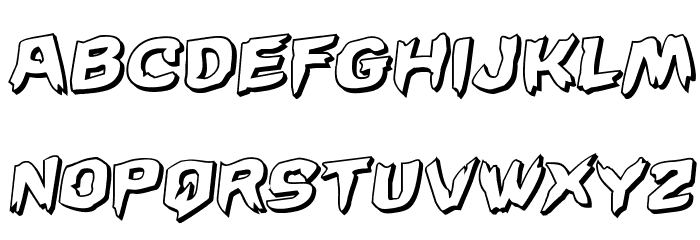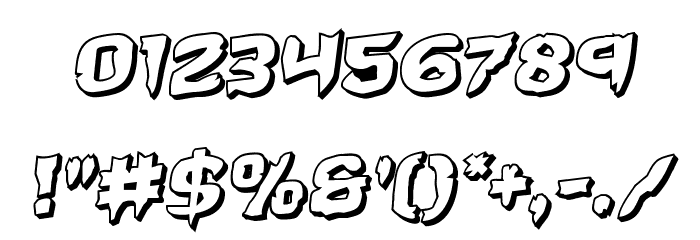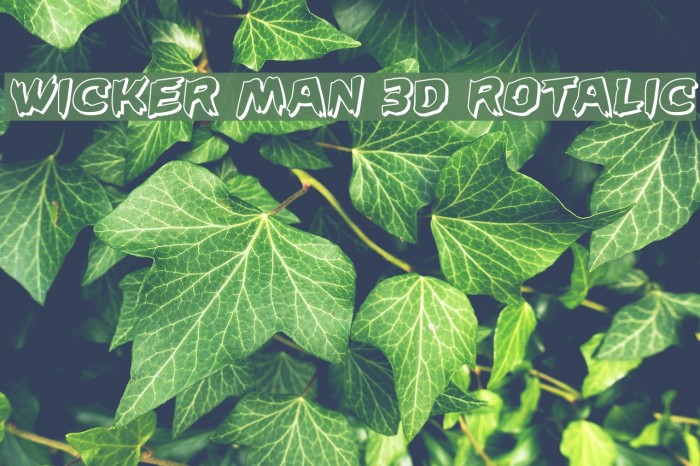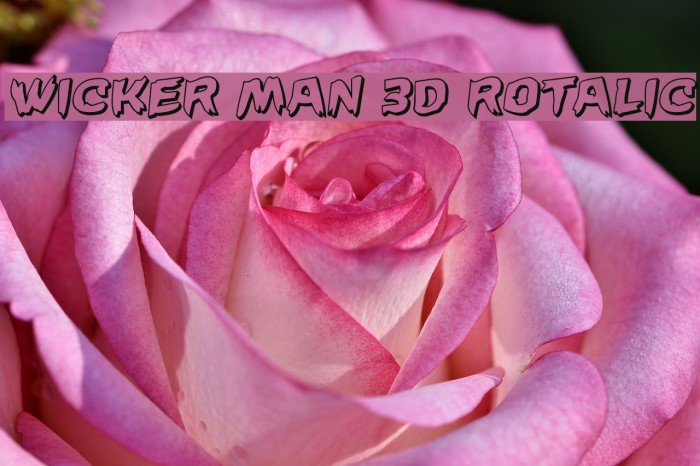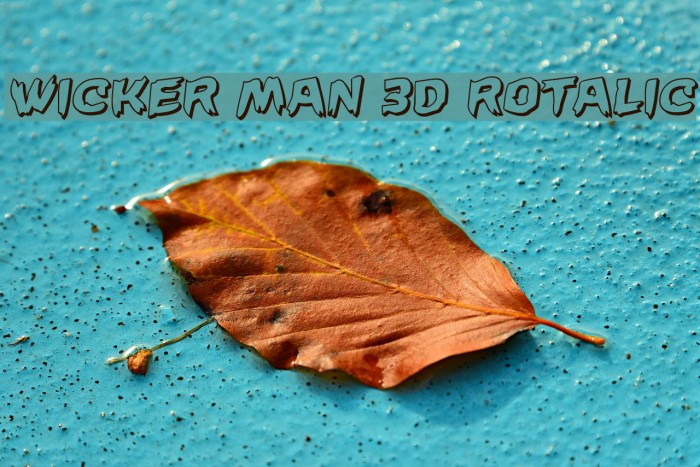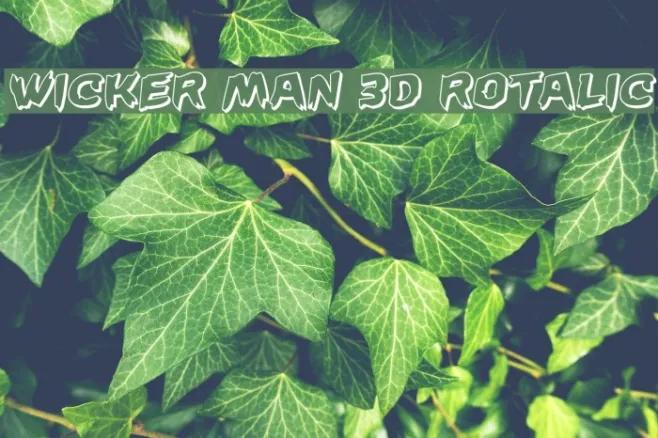
Wicker Man 3D Rotalic Font
This font features a bold, dynamic style with a three-dimensional effect that gives it a sense of depth and movement. The characters are outlined with a thick, black border, enhancing their visibility and impact. The design incorporates sharp angles and irregular edges, contributing to a rugged, edgy appearance. This font is particularly eye-catching and is designed to stand out, making it ideal for attention-grabbing headlines or titles. The uppercase and lowercase letters maintain a consistent style, and the numerals and special characters are crafted with the same bold, impactful design.
A bold, 3D font with sharp angles and a rugged, edgy style.
- Proposed Projects: Ideal for posters, video game titles, comic book covers, and any project requiring a bold, eye-catching font.